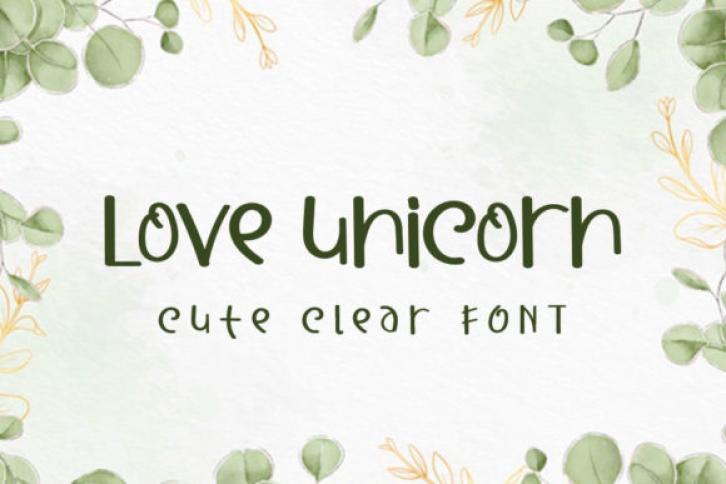
Love Unicorn is a modern and incredibly cute display font. It is quirky and sweet, and as a result, it will be the perfect fit for a wide variety of designs! Add it to your most creative ideas and notice how it makes them come alive!